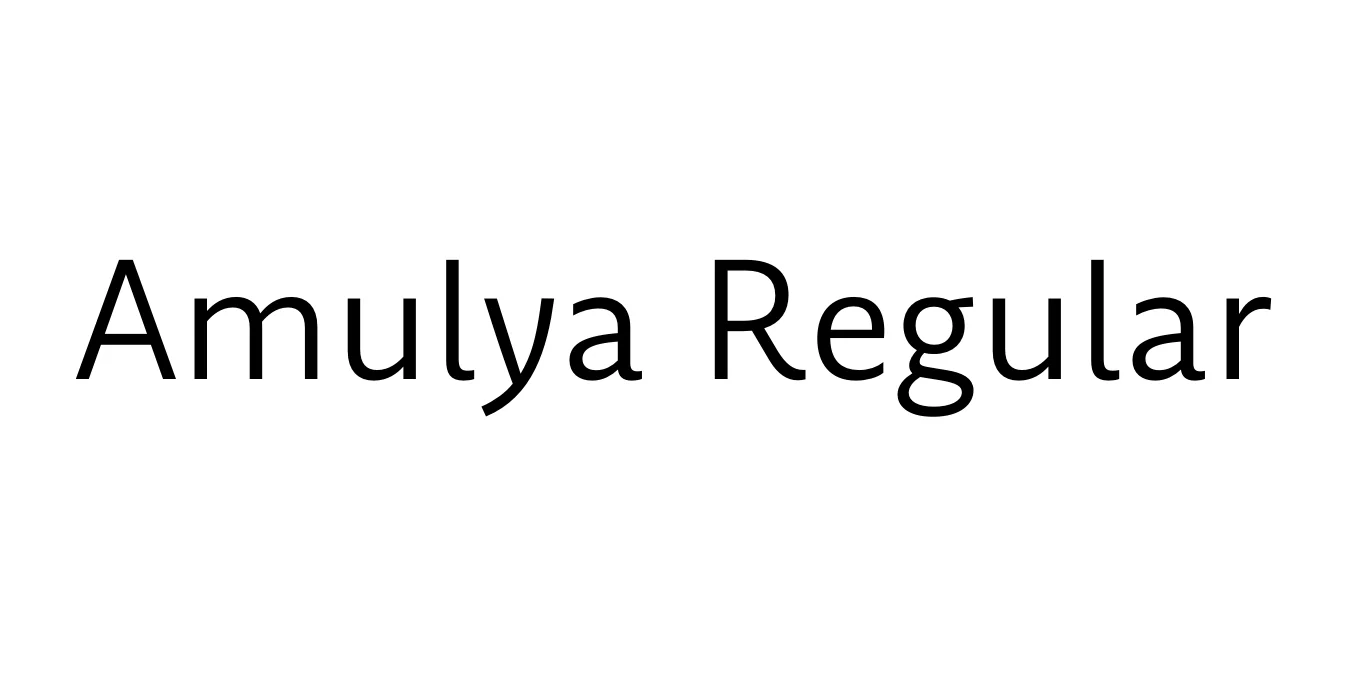
Amulya Regular
Designed by Indian Type Foundry
Amulya Regular is a sophisticated geometric sans-serif typeface meticulously crafted by the Indian Type Foundry. It strikes a perfect balance between mathematical precision and organic warmth, offering a clean aesthetic that fits seamlessly into contemporary design workflows. The font is characterized by its balanced proportions, circular forms, and crisp terminals, making it a reliable choice for designers seeking a professional yet approachable look.
Originally developed to meet the demands of both high-resolution screens and high-quality print production, Amulya stands out for its exceptional legibility. Its open apertures and generous x-height ensure that text remains clear even in dense layouts. Whether utilized for complex user interfaces or elegant editorial spreads, this typeface provides a versatile foundation for a wide range of creative applications.
Amulya Regular Best Uses
Highly readable on digital screens for apps and web platforms.
Excellent for creating a clean and modern corporate identity.
Pairs well with serif fonts for sophisticated magazine layouts.
Clean lines make it impactful for billboards and promotional posters.